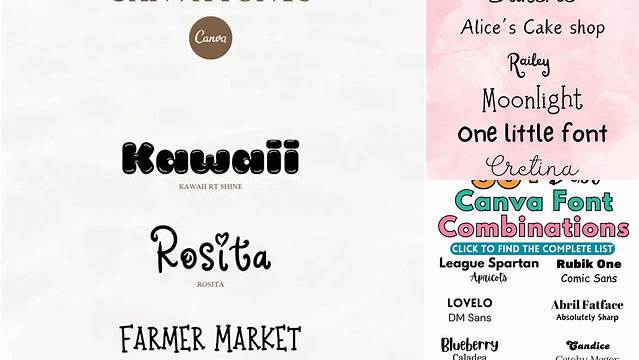
Best Canva Fonts: Cute Fonts For Stunning Designs
Hey guys! Let's talk about something super important for anyone using Canva: fonts! Choosing the right font can seriously make or break your design. It's like picking the perfect outfit – it needs to match the vibe, right? So, whether you're whipping up social media posts, creating presentations, or designing marketing materials, having a go-to list of cute fonts in Canva is a total game-changer. I'm going to share some of my absolute favorite cute fonts that are available in Canva, and trust me, they're going to add that special touch to your projects. Let's dive into the world of typography and find some fonts that will make your designs pop!
Why Choosing the Right Font Matters in Canva
Alright, before we get to the good stuff – the fonts themselves – let's quickly chat about why fonts are so darn important. Think of your design as a conversation. The visuals are what initially grab someone's attention, but the font is the voice that delivers the message. It sets the tone, evokes emotions, and helps your audience understand what you're trying to say. Now, imagine trying to have a conversation with someone using a really boring or clashing font – it would be a total mood killer, right? The wrong font can make your design look unprofessional, confusing, or just plain unappealing. On the flip side, the perfect font can instantly elevate your work, making it look polished, stylish, and totally on-brand. It's about creating visual harmony, and fonts play a massive role in achieving that. Plus, using a font that suits your brand's personality helps establish a strong identity and makes your content more memorable. So, basically, fonts are the unsung heroes of design, and getting them right can make a huge difference in how your work is perceived.
When you are using Canva, there are tons of fonts to choose from. Canva is a great platform because it is easy to use. This makes it ideal for beginners or folks who aren't professional designers. But with so many options available, it can be a little overwhelming. That's where knowing a few cute fonts in Canva that you can always rely on comes in handy. These fonts will consistently give your designs a stylish and attractive look. It's like having a secret weapon in your design arsenal! They're also great for saving time and making sure your designs are consistent and look good. Having a curated list of go-to fonts will make your design process smoother and more enjoyable.
Canva Fonts: The Best Cute Fonts for Your Designs
Okay, let's get to the fun part: the fonts themselves! Here's my list of the best cute fonts to use in Canva, grouped by their overall style and what they're best used for. Remember, a font's effectiveness really depends on the overall design, so don't be afraid to experiment and see what works best for your project. I've got some favorites, but don't be afraid to try your own too. Here are some of my top recommendations to make your designs more eye-catching and appealing.
Handwritten Fonts
Handwritten fonts are great for adding a personal, approachable touch. They can make your design feel more friendly and less formal, which is perfect for projects where you want to connect with your audience on a more human level. These fonts often have a casual and somewhat imperfect aesthetic, which helps create a sense of authenticity and warmth. They are usually the best choices for social media graphics, invitations, and projects where you want a more relaxed and informal feel. They are also very popular for creating quotes, headings, and other short pieces of text. Keep in mind that because these fonts can be harder to read at times, they’re usually best when used for titles or short phrases, rather than long blocks of text.
Playlist Script: This is a really elegant and flowing script font. It's perfect for invitations, quotes, or anything that needs a touch of sophistication. It looks great at a slightly larger size. This is a nice font that will look excellent for branding purposes.
Dancing Script: A fun and lively script font. Dancing Script is one of those fonts that just make you smile. It’s got a playful feel, but is still clear and easy to read, making it great for headings or short bursts of text. You’ll find that this font is great for branding and looks amazing on apparel.
Caveat: This font is a little bit more playful. Caveat is a nice and versatile font with a slightly messy, handwritten look. Caveat is perfect for creating a friendly and inviting feel in your designs. It's great for headings, subheadings, and short pieces of text where you want to add a personal touch. It also works well in both digital and print designs.
Serif fonts are the ones that have those little decorative strokes at the ends of the letters – think of them as the fancy details. They often convey a sense of tradition, elegance, and sophistication. These fonts are often used for headings and titles because they stand out. If you're working on something where you want a classic or refined look, serif fonts are the way to go. The little serifs add a touch of style and make the font stand out. The most commonly used serif font is Times New Roman. However, there are other fonts with a bit more personality.
Playfair Display: This is a beautiful and classy serif font with a high contrast between thick and thin strokes. It's perfect for headlines, especially if you want to give your designs a luxurious feel. Playfair Display is a great choice for designs that want to be a little more professional and sophisticated. This font works great when it's paired with a san-serif font.
Lora: A well-balanced serif font that's super versatile. Lora is a solid choice for both headings and body text. It has a modern, clean look that can be used in a lot of different design contexts. It works great for a variety of different applications.
Crimson Text: If you want something that leans more traditional, Crimson Text is a good pick. It's a bit more of a classic serif font. It's well-suited for projects that need a vintage or old-school vibe, or for designs where you want a classic aesthetic.
Conclusion: Level Up Your Canva Designs with Cute Fonts
So, there you have it! With these fonts and tips, you're well on your way to creating stunning designs in Canva. Remember, choosing the right font is a key ingredient in a great design. It helps you communicate effectively and makes your work more visually appealing. By using these cute fonts in Canva, you can totally up your design game and create projects that look both stylish and professional. Now go out there and start designing. Have fun, and happy creating, everyone!